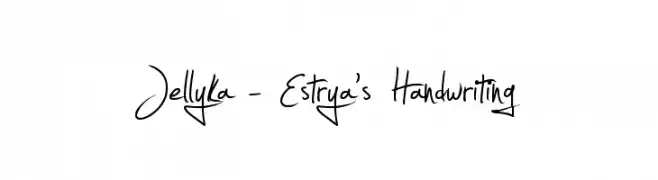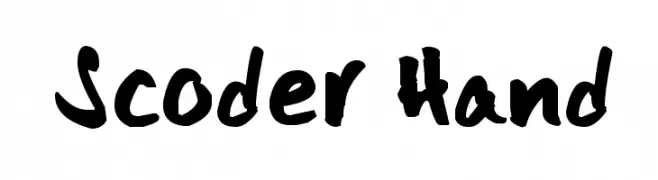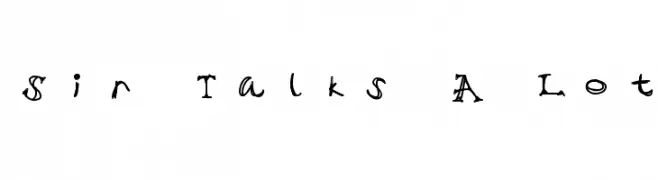
A playful handwritten font with fluid, interconnected strokes and a whimsical style.
A casual, handwritten font with a playful and informal style.
A whimsical, cursive font with elegant, flowing strokes and artistic flair.
A casual, handwritten font with smooth, flowing strokes and medium thickness.